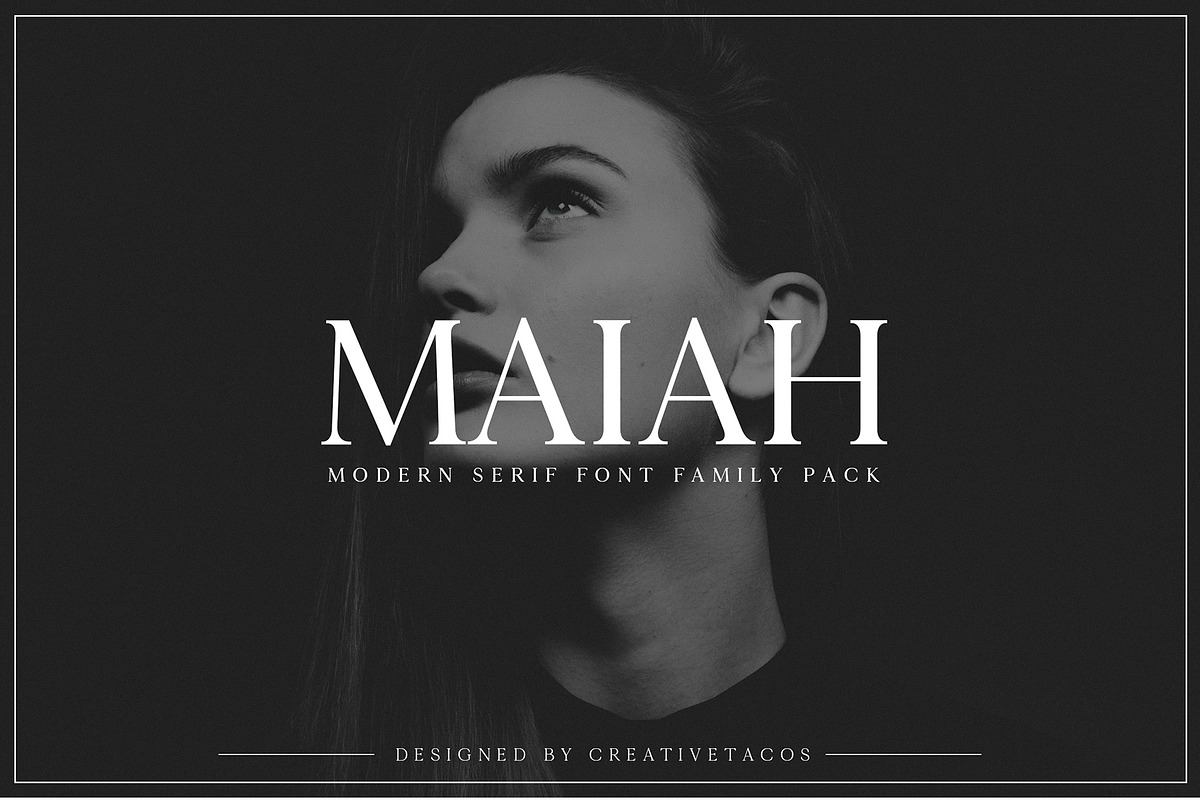
Maiah Serif Font Family Pack Free Download is a sophisticated and versatile typeface family that includes a range of weights and styles, perfect for both display and body text. With its elegant serifs, balanced proportions, and modern design, Maiah is ideal for high-end branding, editorial design, logos, packaging, and more.
This font family offers flexibility across various design needs, whether you're working on a luxury brand identity, a stylish magazine layout, or a clean website design. Maiah combines timeless serif aesthetics with contemporary refinement, making it a great choice for both professional and creative projects.